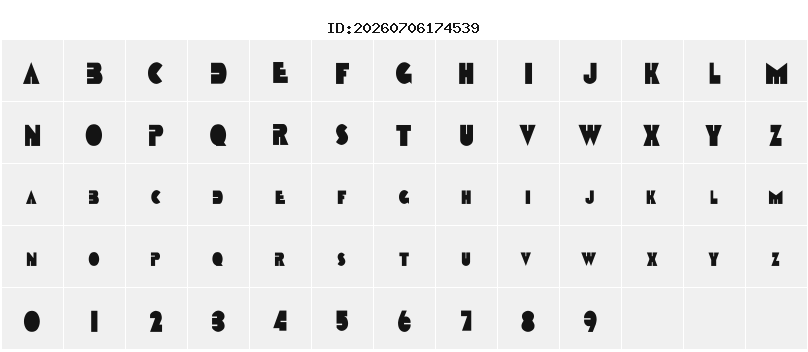
• Font Name: Devendra Cn
• Full Font Name: Devendra Cn
About Devendra Cn.ttf
Devendra Cn.ttf is a modern, elegant sans-serif font designed for ultimate readability and visual harmony. Perfect for branding, headlines, web design, and print materials.